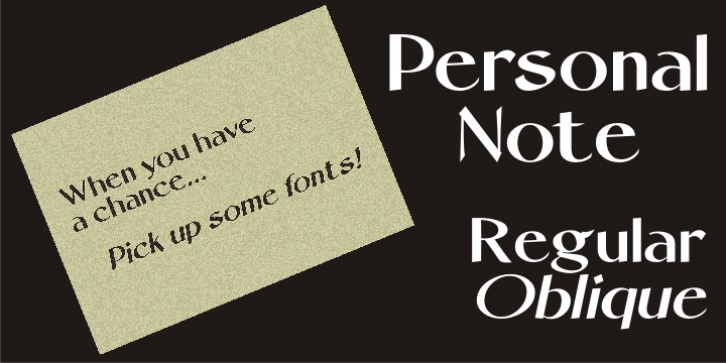
Personal Note JNL was designed by Jeff Levine and published by Jeff Levine. Personal Note JNL contains 2 styles and family package options.
Personal Note JNL gets its inspiration from a semi-calligraphic pen alphabet found in the 1960 edition of the Speedball® lettering textbook and is offered in both regular and oblique versions.